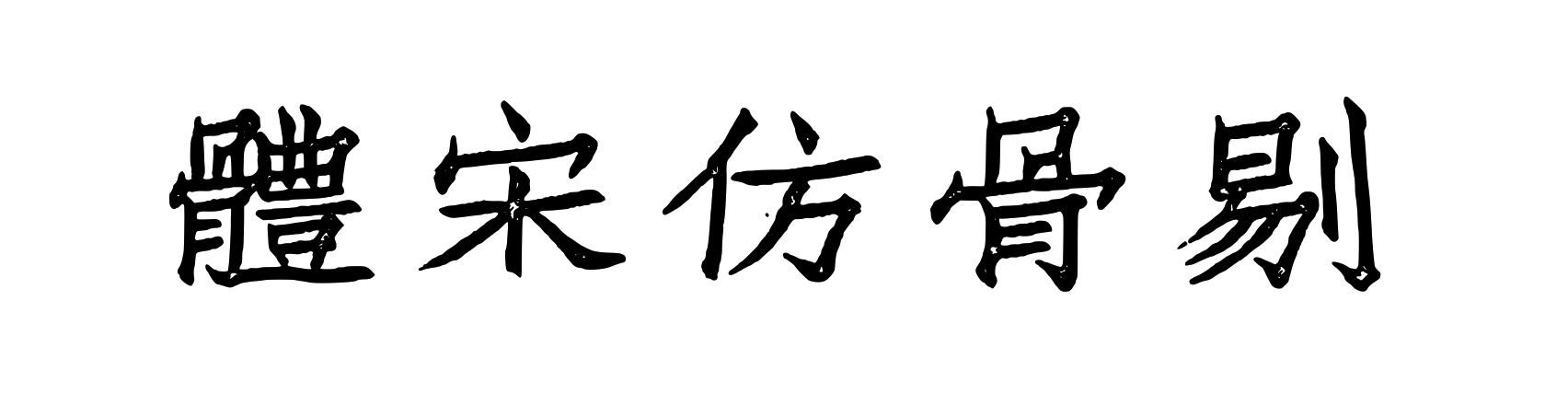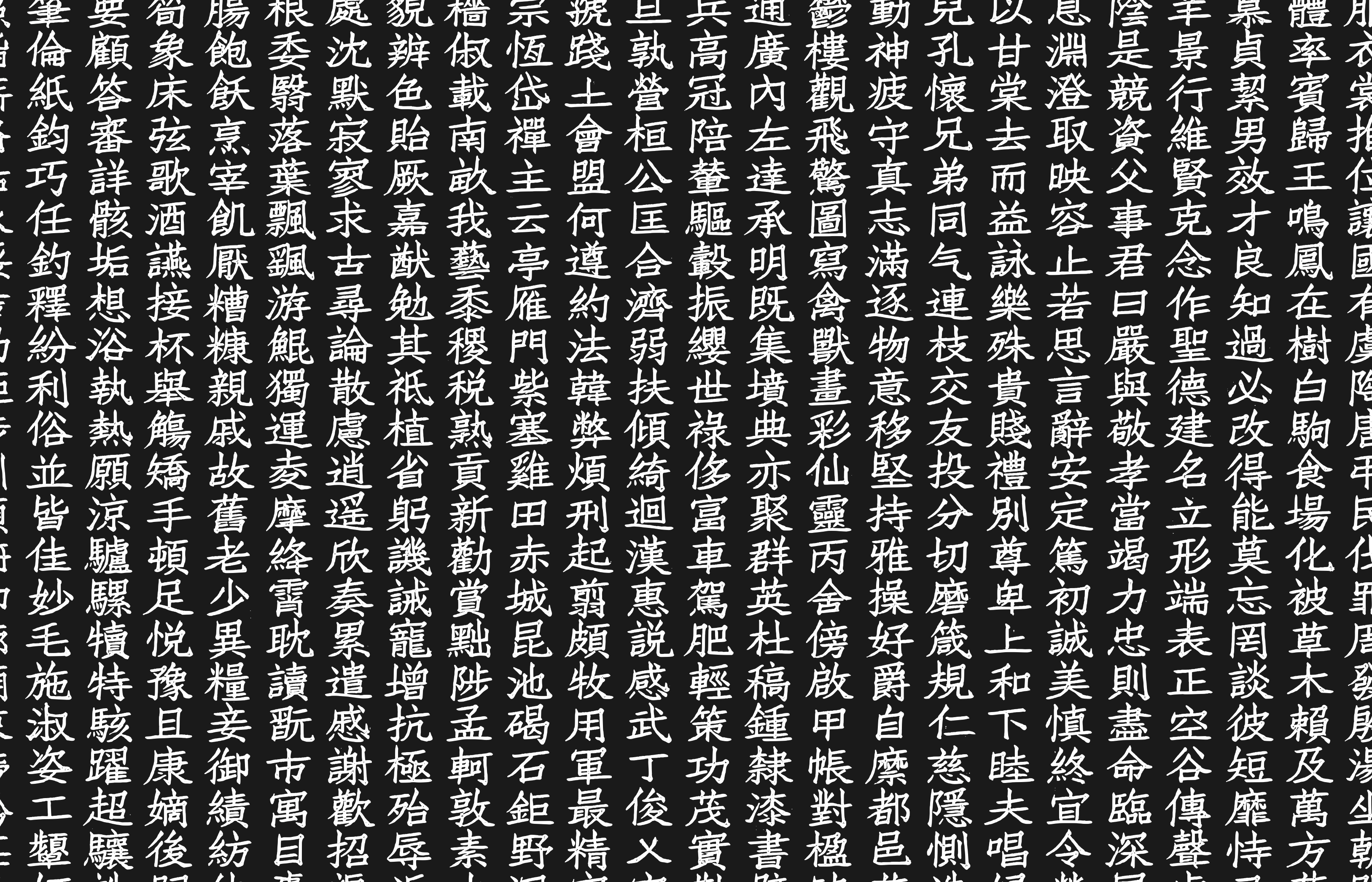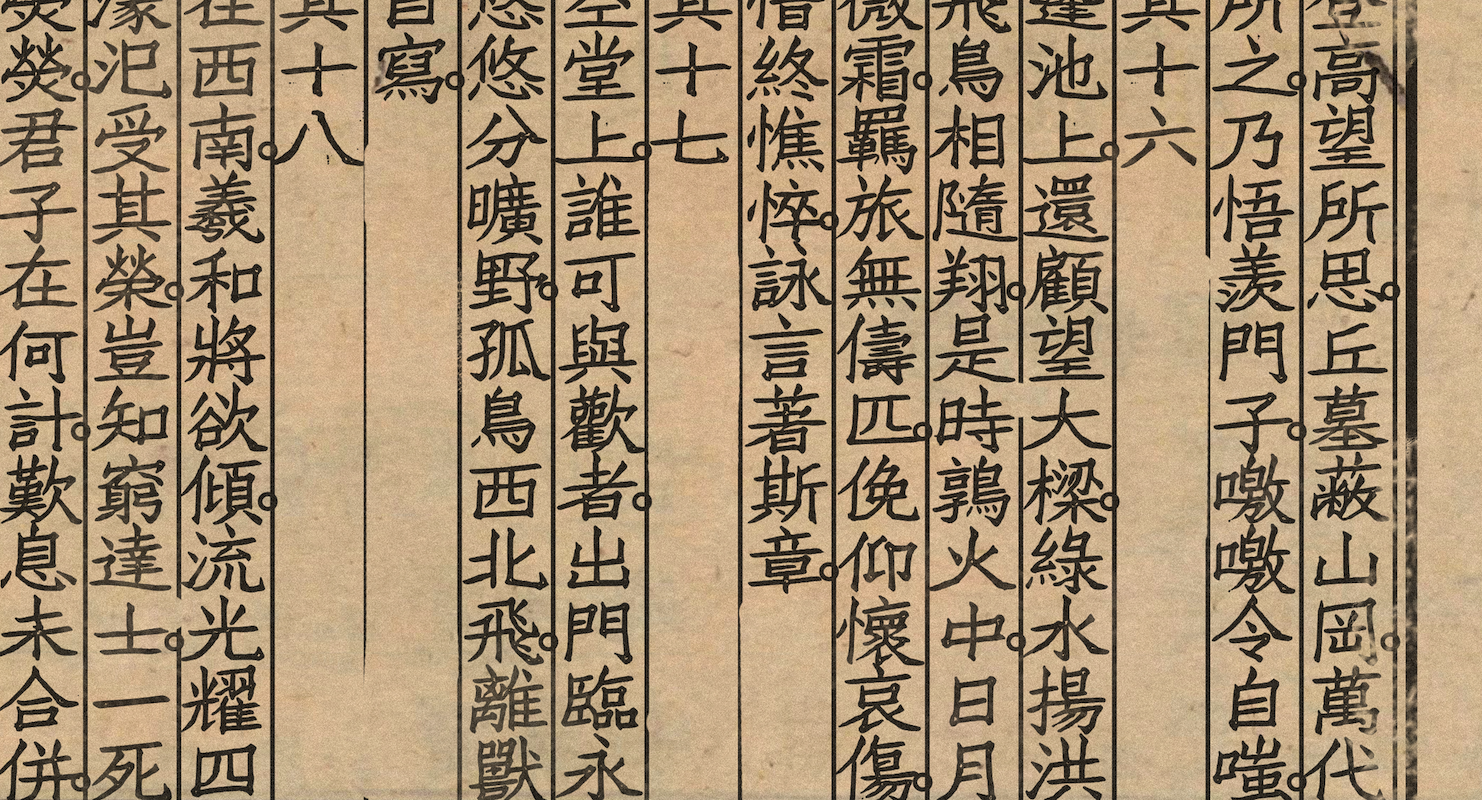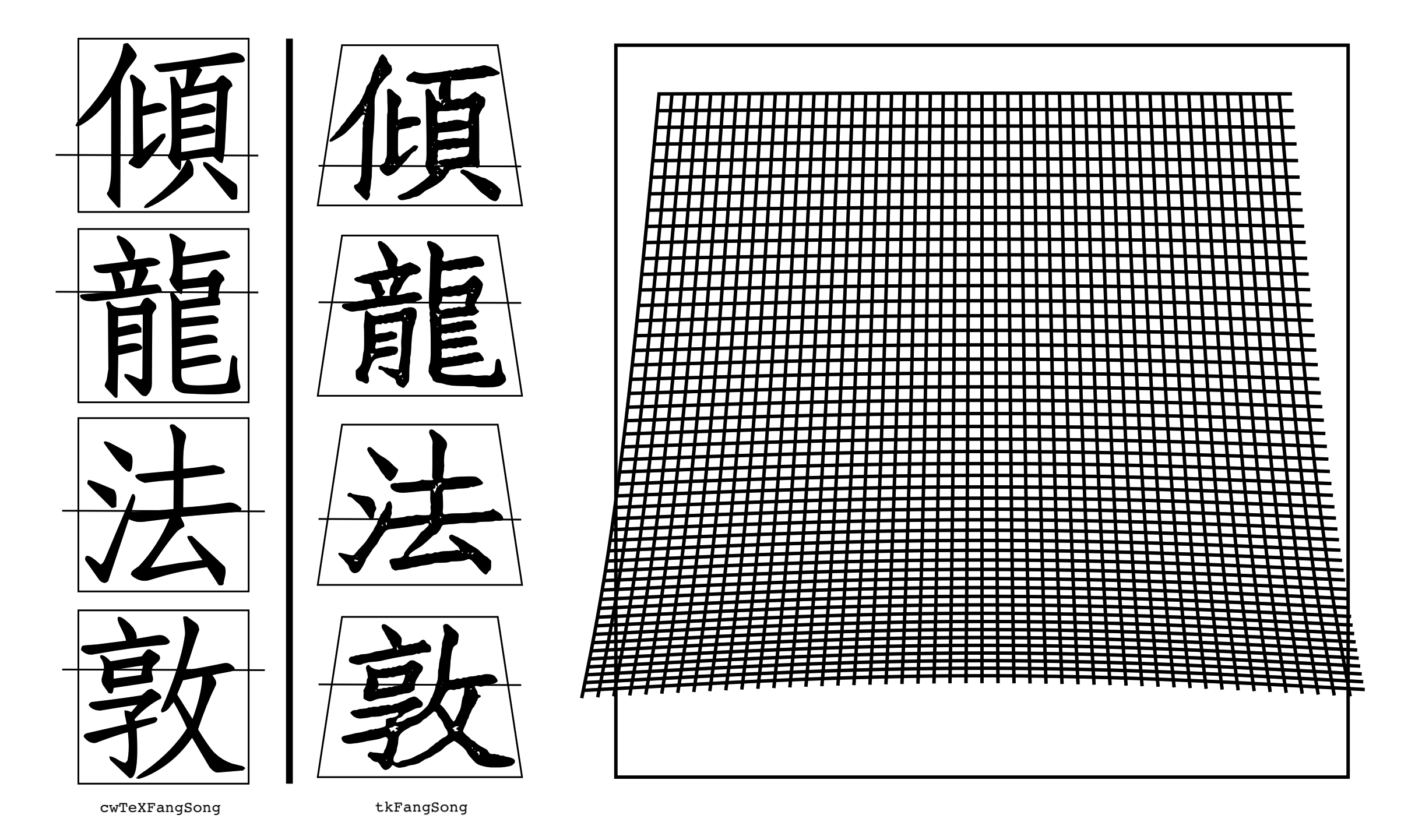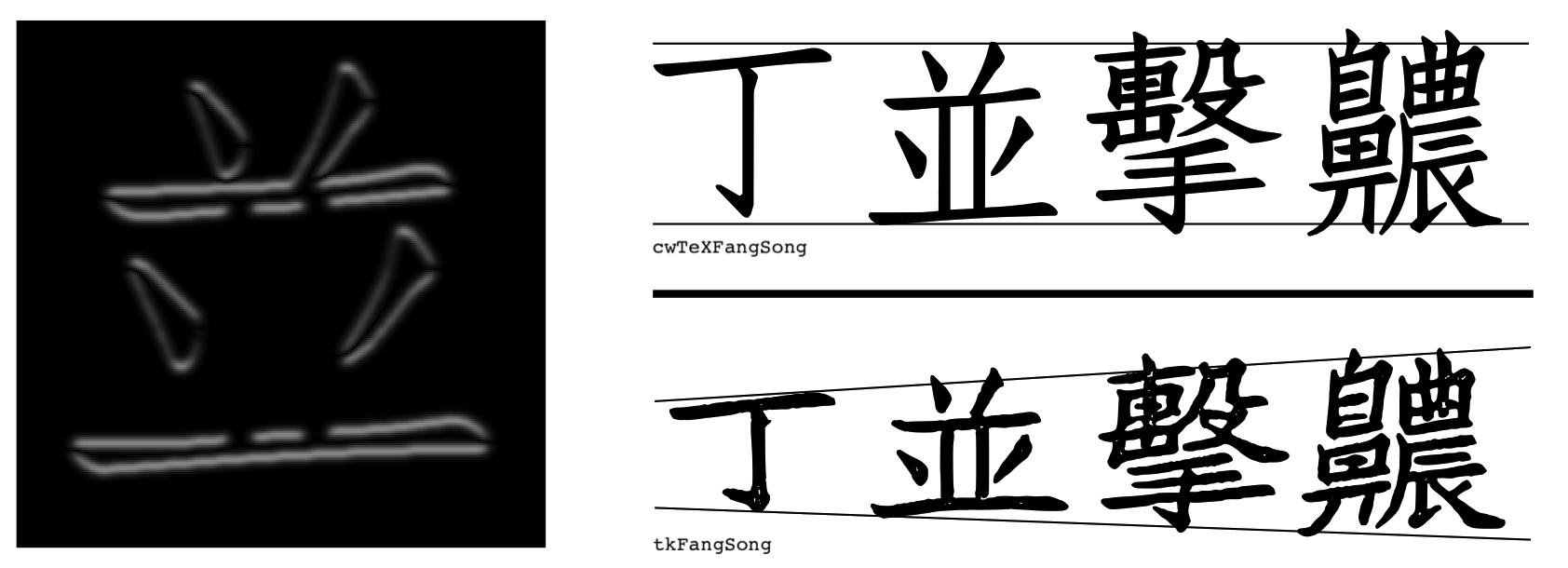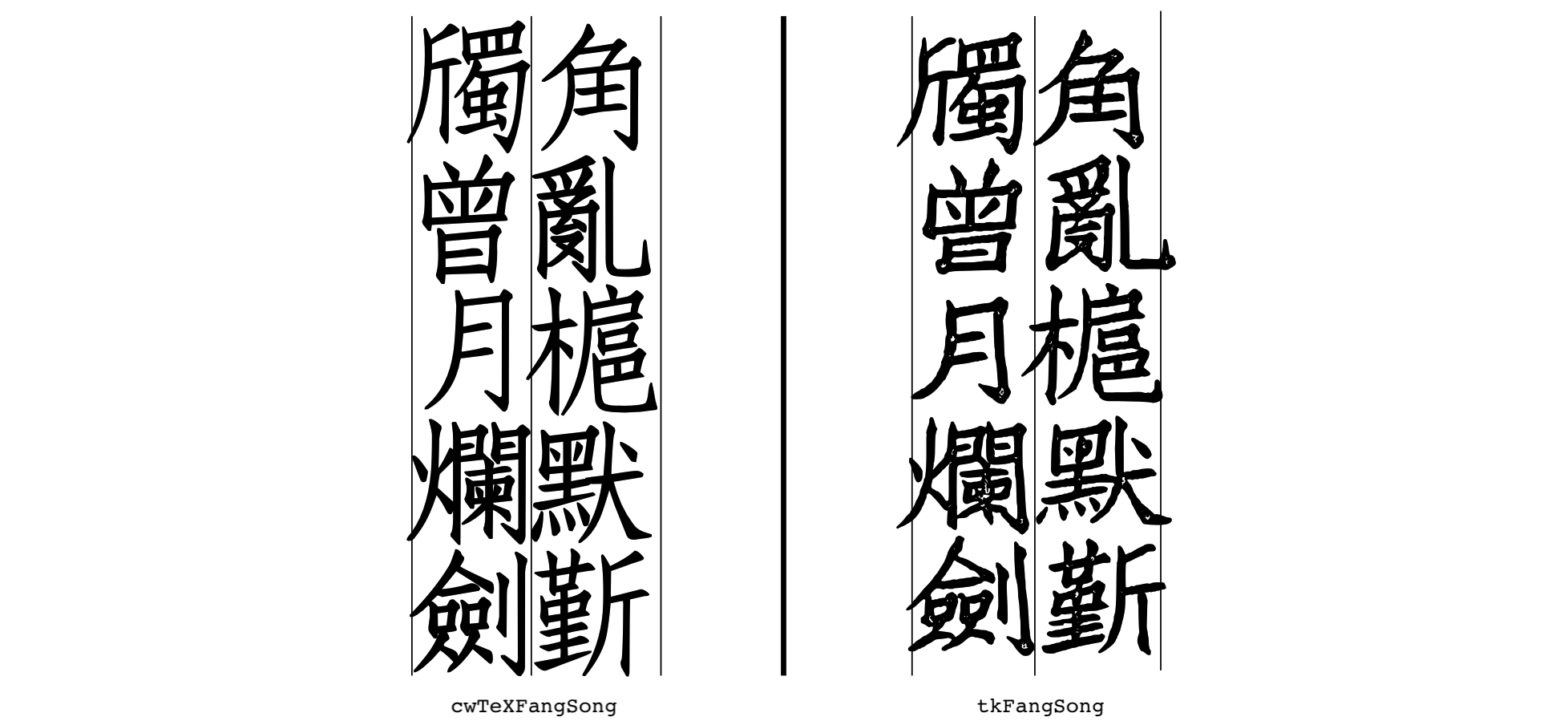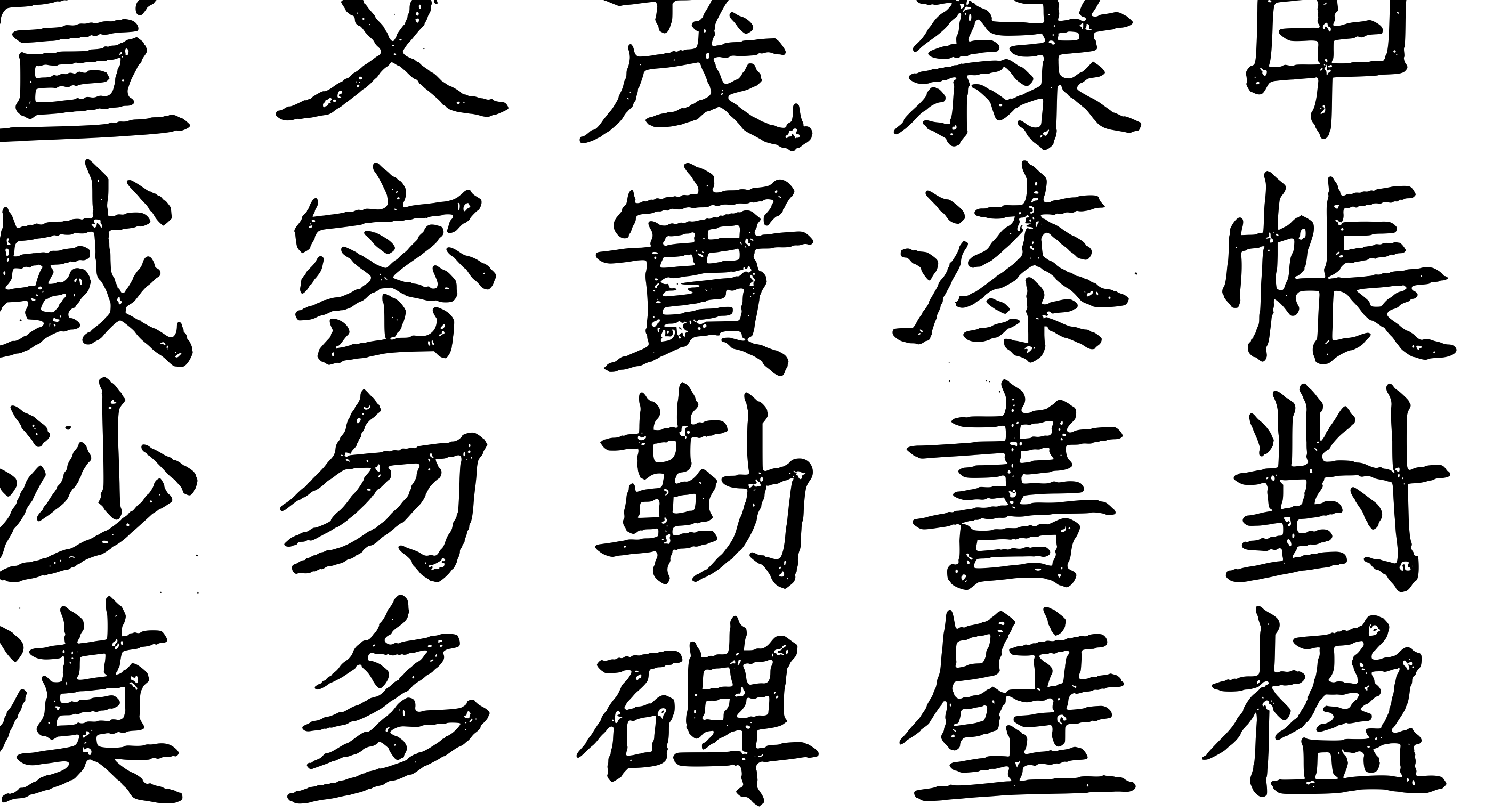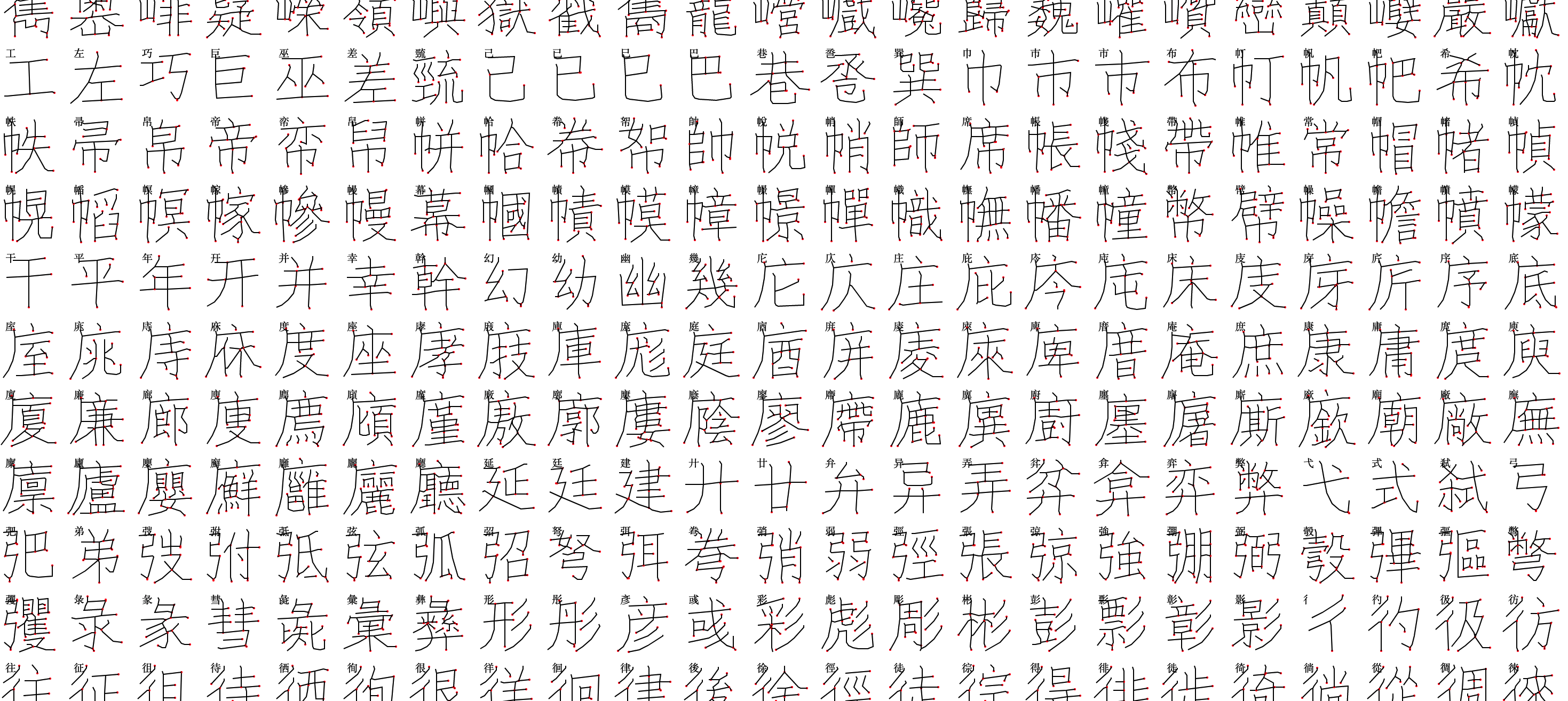
剔骨仿宋: Experimental Fang Song style Chinese font
git clone https://github.com/LingDong-/tk-fangsong-font.gitLingDong-/tk-fangsong-fontAn experimental Fang Song style Chinese font generated with skeleton-tracing and pix2pix, with glyphs based on cwTeXFangSong. The font is optimised for vertical typesetting. Below is a sample:
The font contains roughly 13,000 glyphs, mostly for traditional Chinese.
I created the font for one of my own projects. The font is admittedly not perfect, but nevertheless have many ineteresting features; therefore I am sharing the font file and programs used to generate it.
The name of the font is 剔骨仿宋 (thek-kwot-fang-song, So named because the algorithm that created it resembles "deboning"). It is licensed under SIL open font license. If you wish to credit the author, you might use my name 黃令東/黄令东, or the romanization "Lingdong Huang".
Features
The font builds on the elegant shapes from cwTeXFangSong to add more hand-made look and feel reminiscent of the aesthetics of old woodblock printed books.
The font has a wider proportion compared to the original cwTeXFangSong, and is further widened towards the bottom, to accentuate the finishing strokes. The "center of mass" is also moved downwards:
Above right is a visualization of the base function used to warp the skeleton.
The height of a glyph is additionally tweaked based on its vertical complexity, computed with Sobel operator and taking the max of each pixel row.
Many fonts are optimized for horizontal typesetting, and as such, when arranged vertically, the center of mass shifts left and right, giving a jagged look. This font attempts to solve the problem by computing centroids (via image moments) and aligning them.
The font has rich textures. Some of them are artifacts produced by pix2pix network; others are fine-tuned noises delibrately added.
It is to be noted that, as an automated process, it doesn't always produce optimal results; some characters might end up looking ugly, or use the wrong caligraphic movement for certain strokes; For some caligraphers, some strokes might appear too "weak" to their tastes.
Process
The medial axis (skeleton) is computed for each raster rendering of the glyphs in the original font. (The resultant hershey font can be found at ./dist/CWFS64J.HF.TXT)
Pairs of images: the original rendering vs the skeletons are sent to pix2pix for training. pix2pix learns the correspondance and becomes capable of turning skeletons to glyphs.
New skeletons are generated by warping the originals according to my (questionable) taste.
All the new skeletons are fed into the trained network to obtain the new glyphs. The new glyphs are warped in structure, but the weight and shape of the strokes still look legit.
Some post-processing is applied, and potrace is used to re-vectorize the glyphs. Finally, fontforge is used to create a TTF file.